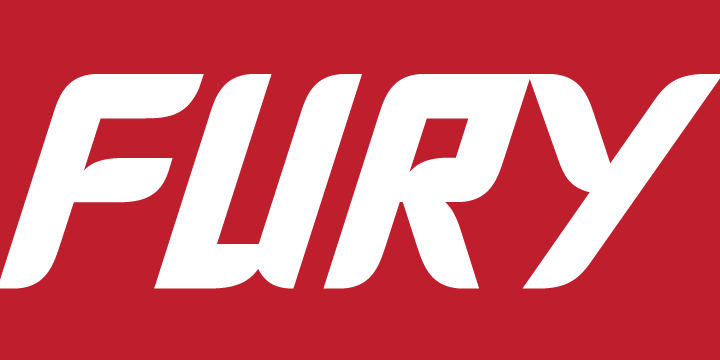
Fury
Fury is a display sans font family. This typeface has two styles and was published by Canada Type.
Get your goggles on.
You
The world can be turned off or on at your very whim.
Never mind the markets, resource counters, national inflations, caviar-loaded barons, environmental surprise, or who will nuke whom first.
In 2D it
This is the great escape, shell, shield, your real fury against furious reality.
One fist in the air is the start of a revolution.
Get your goggles on. You’re on your way to the Metaverse, where no subject is off limits, everyone has an avatar, and reality is subjective. The world can be turned off or on at your very whim. Never mind the markets, resource counters, national inflations, caviar-loaded barons, environmental surprise, or who will nuke whom first. In 2D it’s all peace and understanding. This is the great escape, shell, shield, your real fury against furious reality. One fist in the air is the start of a revolution. Two fists are the end of a victory. You are in between.
Be smooth. Stay sharp. Walk the line.